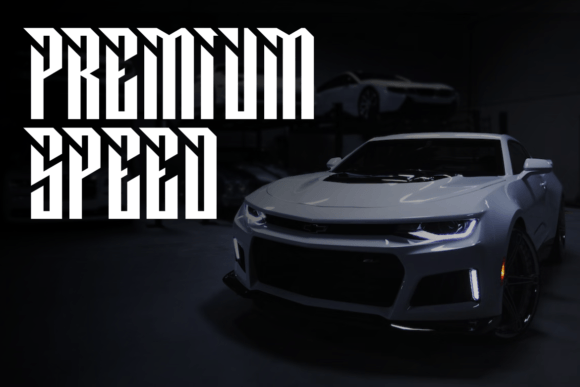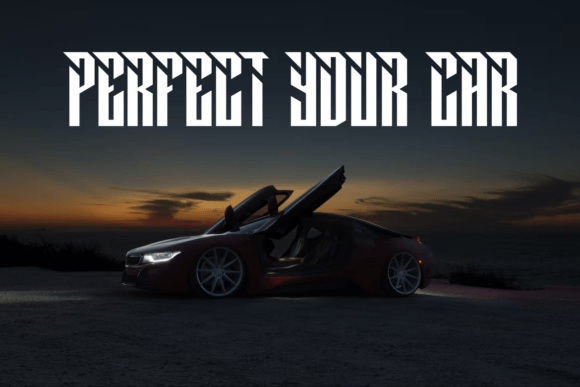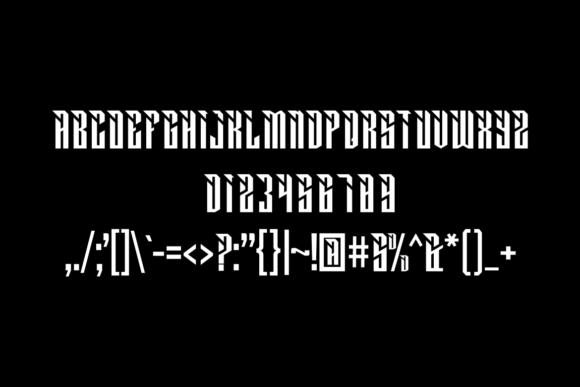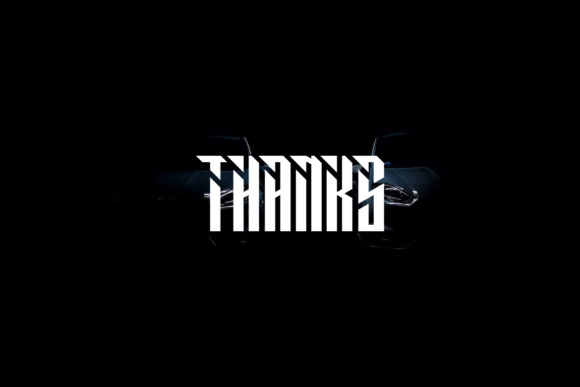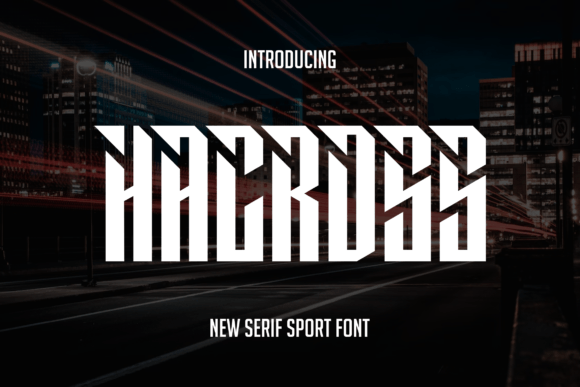
Hacross Font: The Ultimate Choice for Bold and Authentic Designs
In the world of typography, fonts play a crucial role in conveying the tone and personality of a brand. When it comes to creating a lasting impression, designers and crafters often look for fonts that are not only visually appealing but also authentic and bold. This is where the Hacross font comes into play. In this article, we’ll explore the features and benefits of Hacross, and why it’s becoming a popular choice among designers and crafters.
What is Hacross Font?
Hacross is a bold and authentic display font designed to make a statement. Its unique and modern design makes it perfect for a wide range of applications, from logo creation to t-shirt printing, esports, and more. The font’s bold and eye-catching design ensures that it stands out in any context, making it an excellent choice for designers and crafters looking to create a lasting impression.
Key Features of Hacross Font
So, what makes Hacross font so special? Here are some of its key features:
- Bold and Authentic Design: Hacross font boasts a bold and authentic design that’s perfect for creating a statement.
- Versatile: The font is suitable for a wide range of applications, including logo creation, t-shirt printing, esports, and more.
- Modern and Unique: Hacross font features a modern and unique design that sets it apart from other fonts.
- Easily Readable: Despite its bold design, Hacross font is easily readable, making it perfect for use in various contexts.
Benefits of Using Hacross Font
So, why should designers and crafters choose Hacross font for their projects? Here are some benefits of using Hacross:
- Creates a Lasting Impression: Hacross font’s bold and authentic design ensures that it creates a lasting impression on the audience.
- Perfect for Branding Projects: The font is suitable for branding projects, including logo creation, business cards, and more.
- Increases Visibility: Hacross font’s unique design ensures that it stands out in any context, increasing visibility and recognition.
- Easy to Use: The font is easy to use and can be easily integrated into various design projects.
Use Cases for Hacross Font
Hacross font is versatile and can be used in various contexts. Here are some use cases for Hacross:
- Logo Creation: Hacross font is perfect for creating logos that make a statement.
- T-Shirt Printing: The font’s bold design makes it perfect for t-shirt printing.
- Esports: Hacross font is suitable for esports branding, including team logos, jerseys, and more.
- Advertising: The font’s unique design makes it perfect for use in advertising materials, including billboards, posters, and more.
In conclusion, Hacross font is a bold and authentic display font that’s perfect for designers and crafters looking to create a lasting impression. Its unique and modern design makes it suitable for a wide range of applications, from logo creation to t-shirt printing, esports, and more. With its easily readable design and versatility, Hacross font is an excellent choice for any design project.
Whether you’re a designer or crafter, Hacross font is definitely worth considering for your next project. Its bold and authentic design ensures that it stands out in any context, making it perfect for creating a lasting impression.